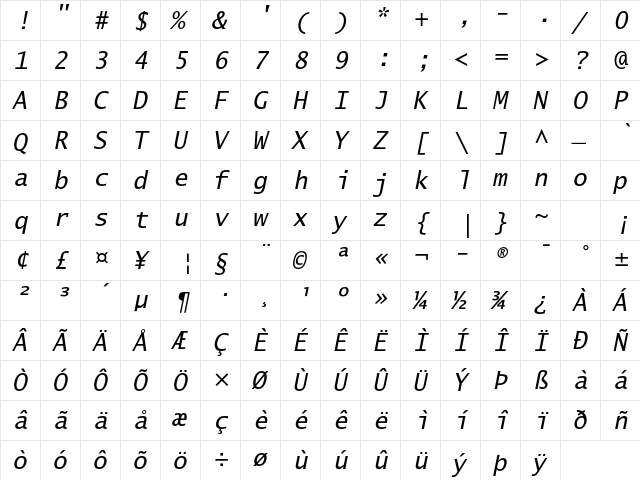
Lucida Sans Typewriter Std Oblique Font Preview
| Designer | Charles Bigelow, Kris Holmes |
Design Context for Lucida Sans Typewriter Std Typeface
Lucida Sans Typewriter Std uses fixed-width spacing throughout, giving it the structured, systematic character associated with coding environments and technical documentation. Its italic angle brings a sense of urgency and motion to the letterforms.